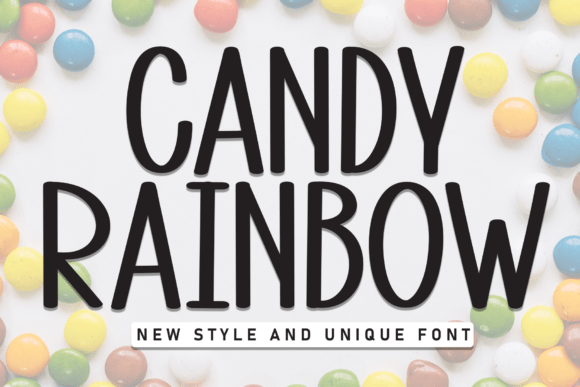
The Sweet Spot: Bringing Personality to Your Designs with Candy Rainbow Font
Have you ever been in the middle of a design project, and suddenly, it feels like something’s missing? You’re not quite sure what it is, but you know it’s not quite right. I recall a project where I was tasked with creating a social media graphic for a client’s new product launch. The product was vibrant, fun, and playful, but my design just wasn’t capturing that essence. That’s when I stumbled upon the Candy Rainbow Font, and it completely transformed my design.
First Impressions: A Font that Bursts with Personality
The Candy Rainbow Font is a display handwritten font that truly bursts with personality and charm. Its bold, eye-catching strokes capture the warmth of real handwriting, making it perfect for logos, social media graphics, posters, and anything that calls for a personal, expressive touch. Whether you’re crafting a heartfelt quote or branding a creative product, this font brings authenticity and flair to your design.
Honest Review: The Good and the Not-so-Good
- ✨ Unique and playful strokes: The font’s bold strokes are full of character, making it perfect for designs that need a personal touch.
- ✅ Natural flow: The font’s natural flow makes it easy to read and understand, even in larger blocks of text.
- 💫 OpenType features: The font comes with a range of OpenType features, including glyphs and stylistic alternates, which allow for endless creative possibilities.
⚠️ While the font is incredibly versatile, it’s not suitable for body text or smaller font sizes. It’s best used for display purposes or headlines.
🤔 Some users may find that the font’s bold strokes can be overwhelming when used in large blocks of text.
The Story Behind Candy Rainbow Font
The Candy Rainbow Font was inspired by the joy and playfulness of childhood. Its creator, a young designer with a passion for handwriting and illustration, wanted to capture the essence of real handwriting in a digital font. With its bold strokes and natural flow, Candy Rainbow Font is the perfect tool for designers who want to add a touch of personality to their designs.
Q: What is the best way to use Candy Rainbow Font?
A: The best way to use Candy Rainbow Font is for display purposes, such as headlines, logos, and social media graphics.